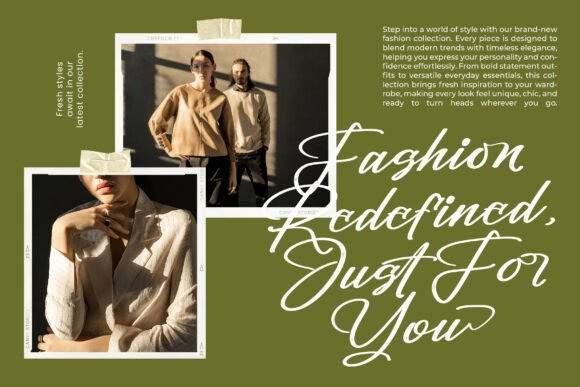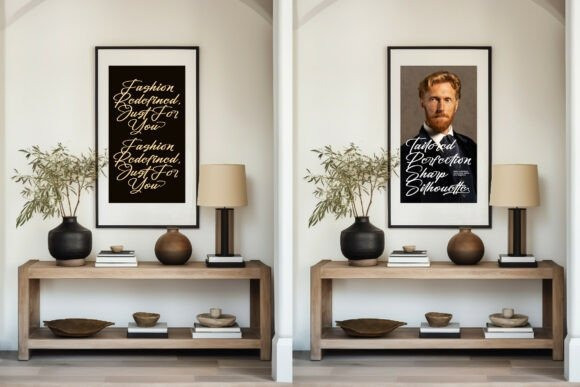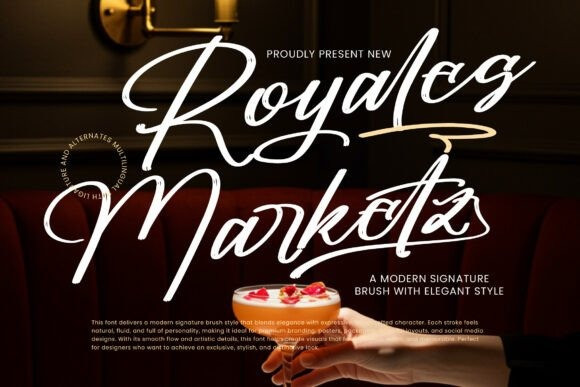
Royales Marketz Font
Royales Marketz Font a modern signature brush font that effortlessly blends high-end elegance with raw, handcrafted character. Defined by its expressive, fluid motion and textured “dry brush” strokes, this typeface is designed for brands that want to feel personal, prestigious, and full of personality.
The allure of Royales Marketz lies in its artistic details and smooth flow, featuring sweeping descenders and creative ligatures that mimic the hand of a master calligrapher. Its multilingual support and extensive set of alternates ensure that every word looks bespoke. It is the definitive choice for premium branding, luxury packaging, upscale editorial layouts, and social media content that demands a sophisticated, “jet-set” aesthetic.